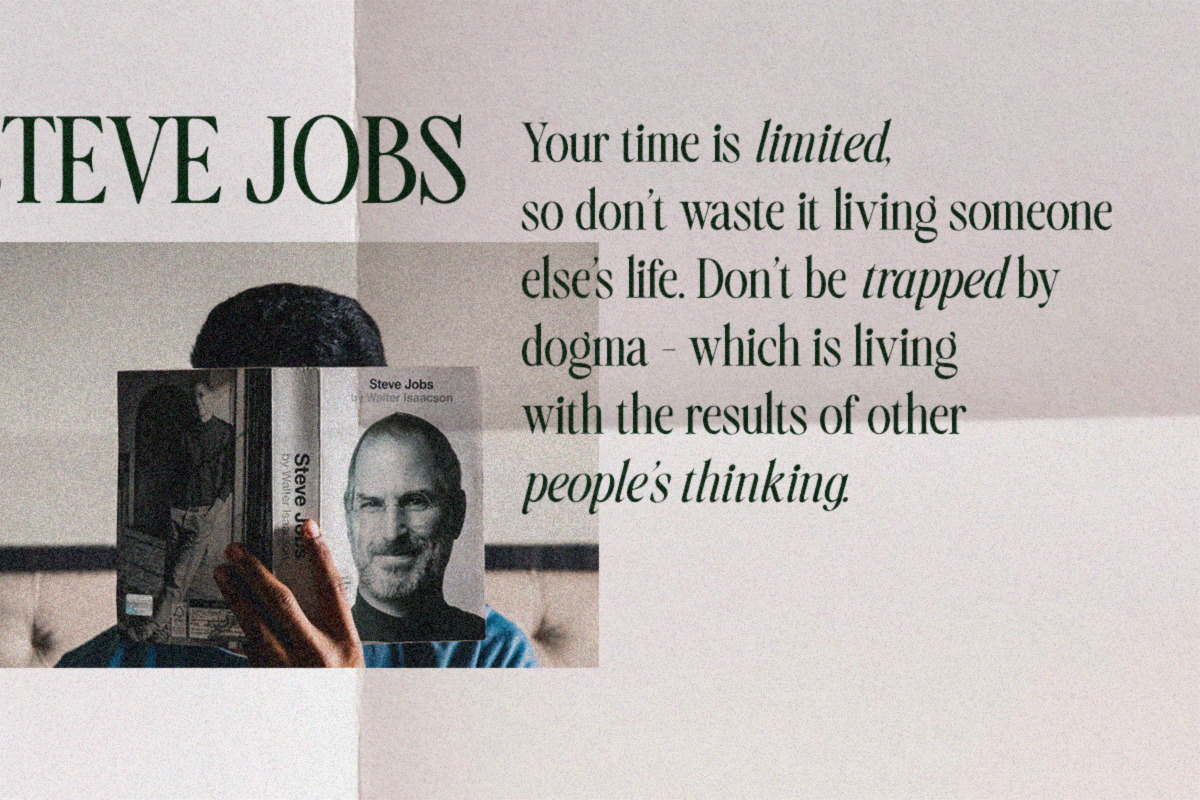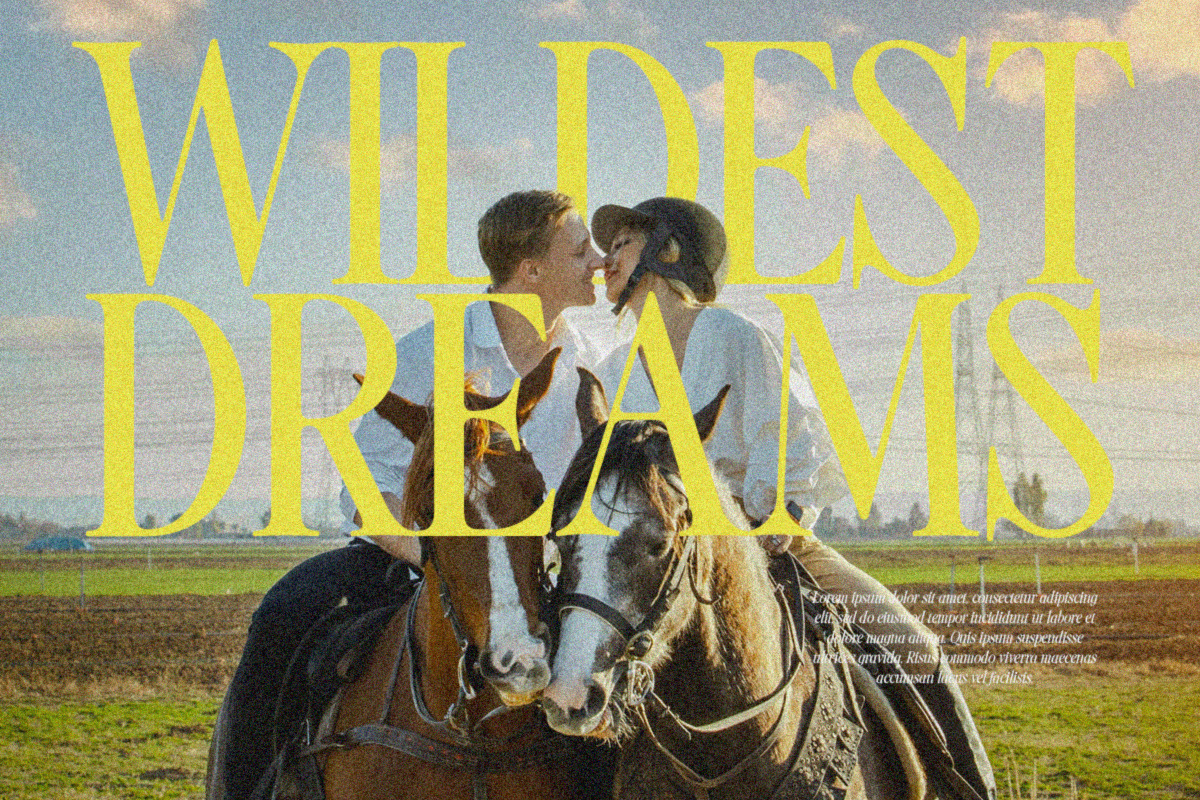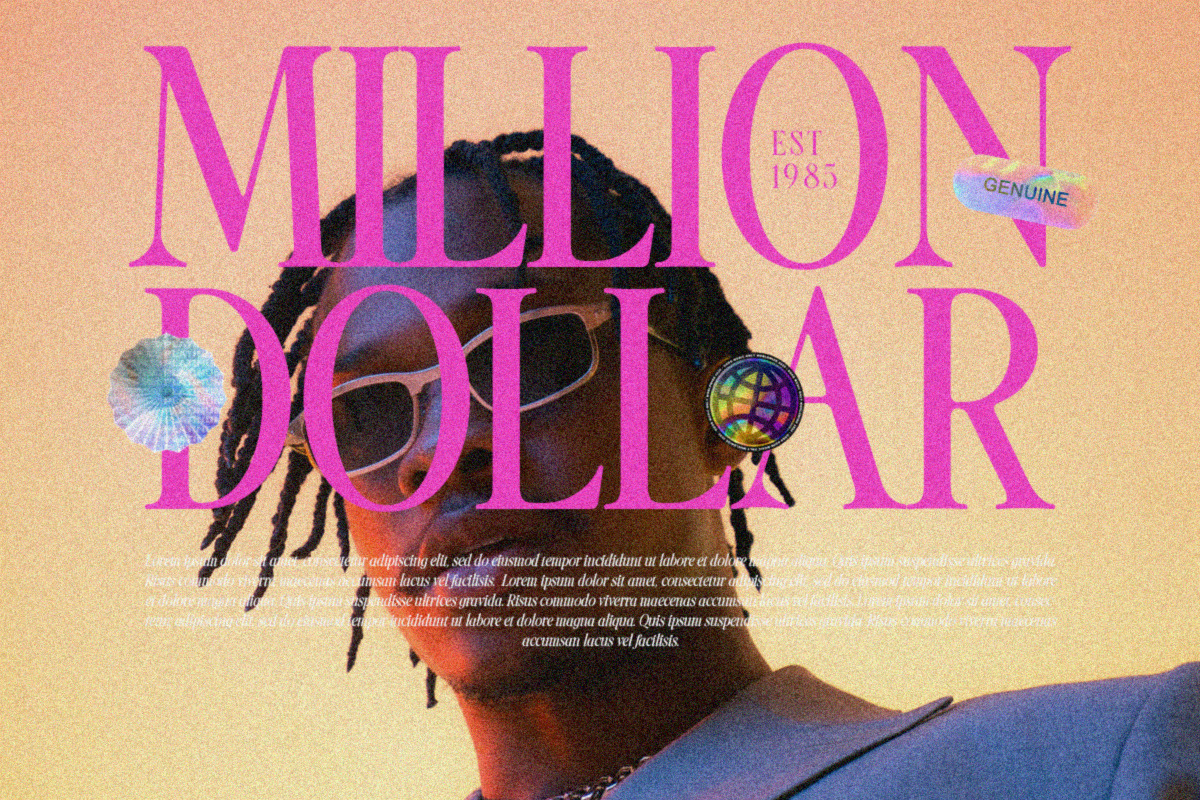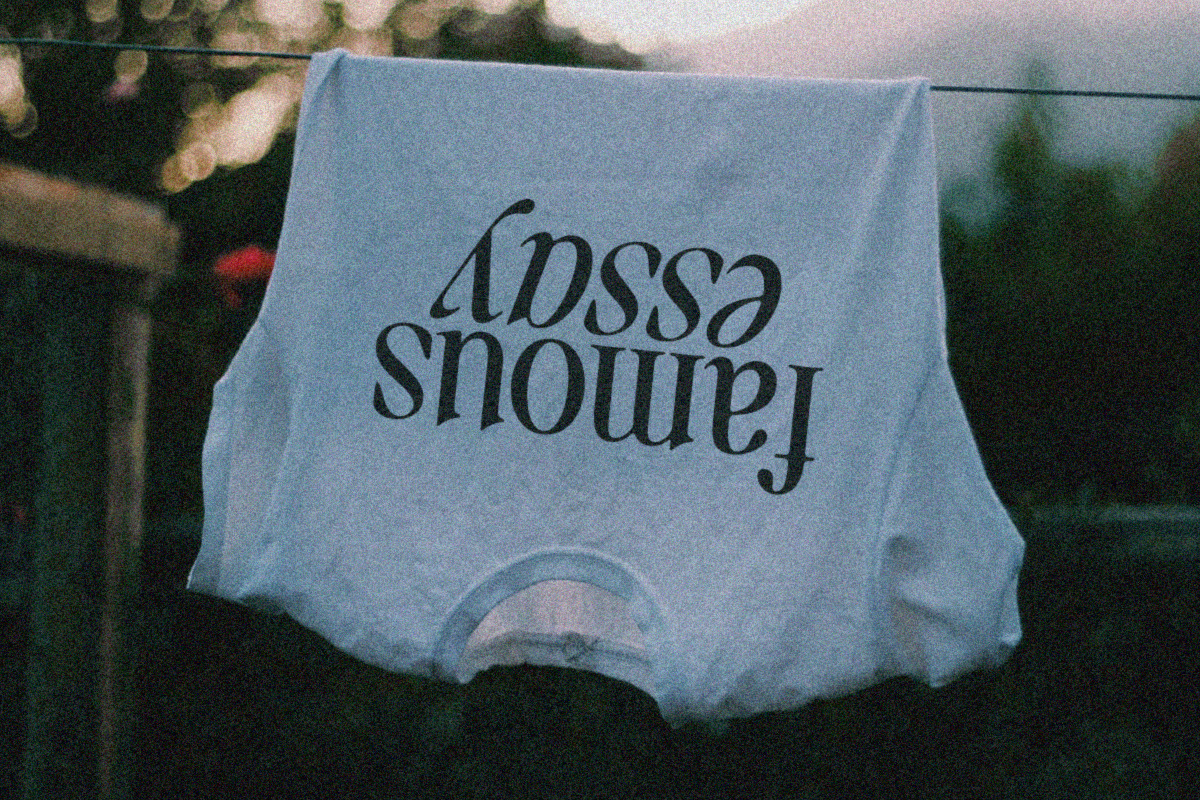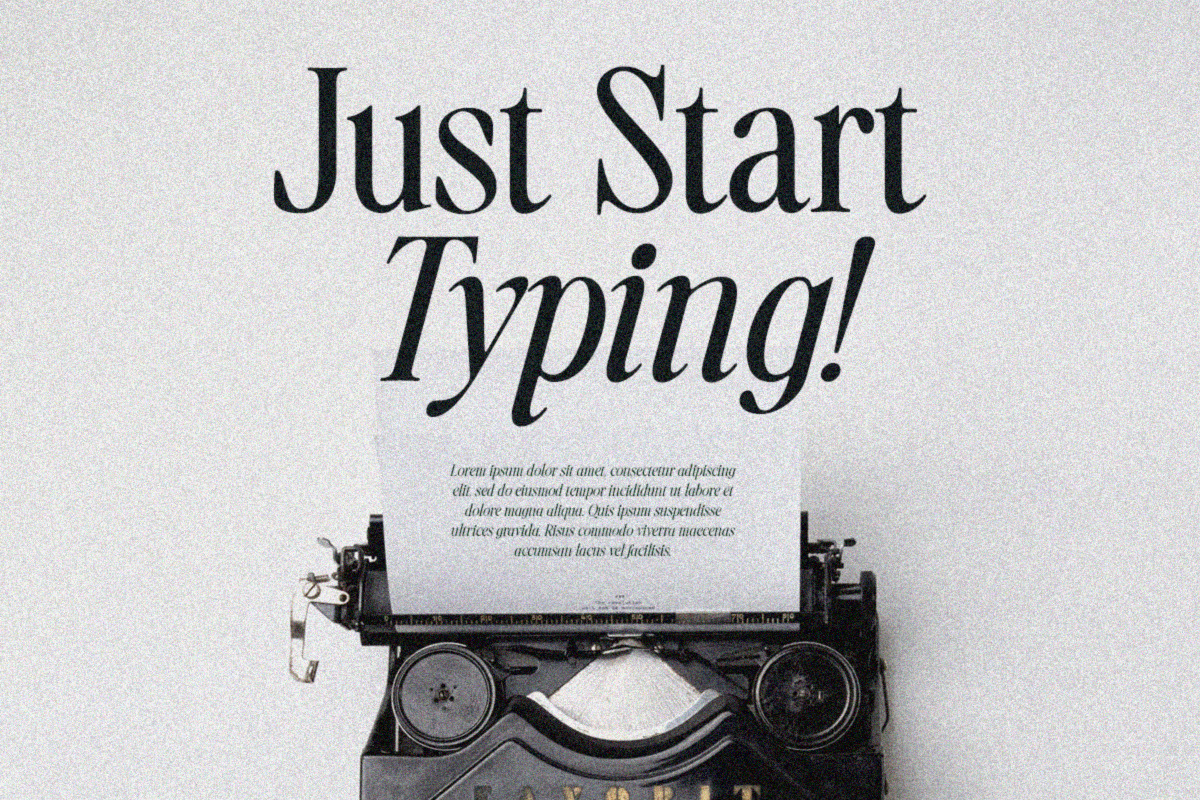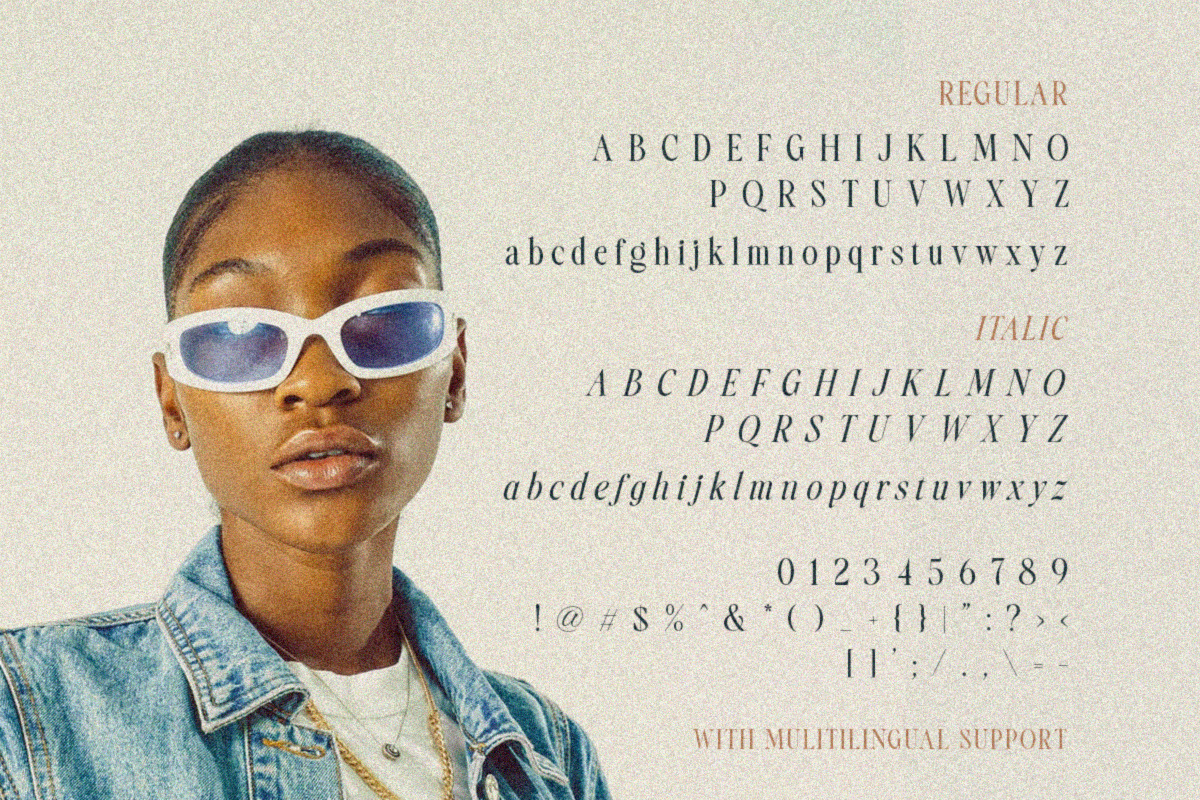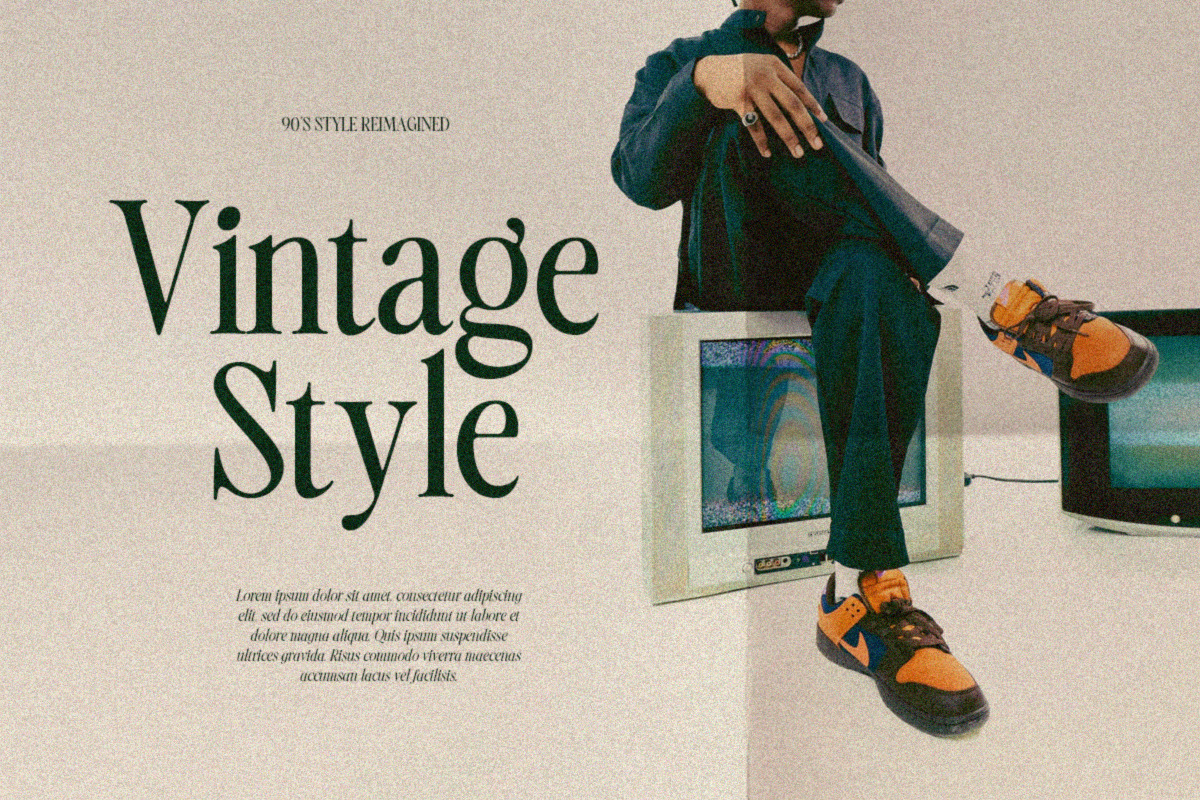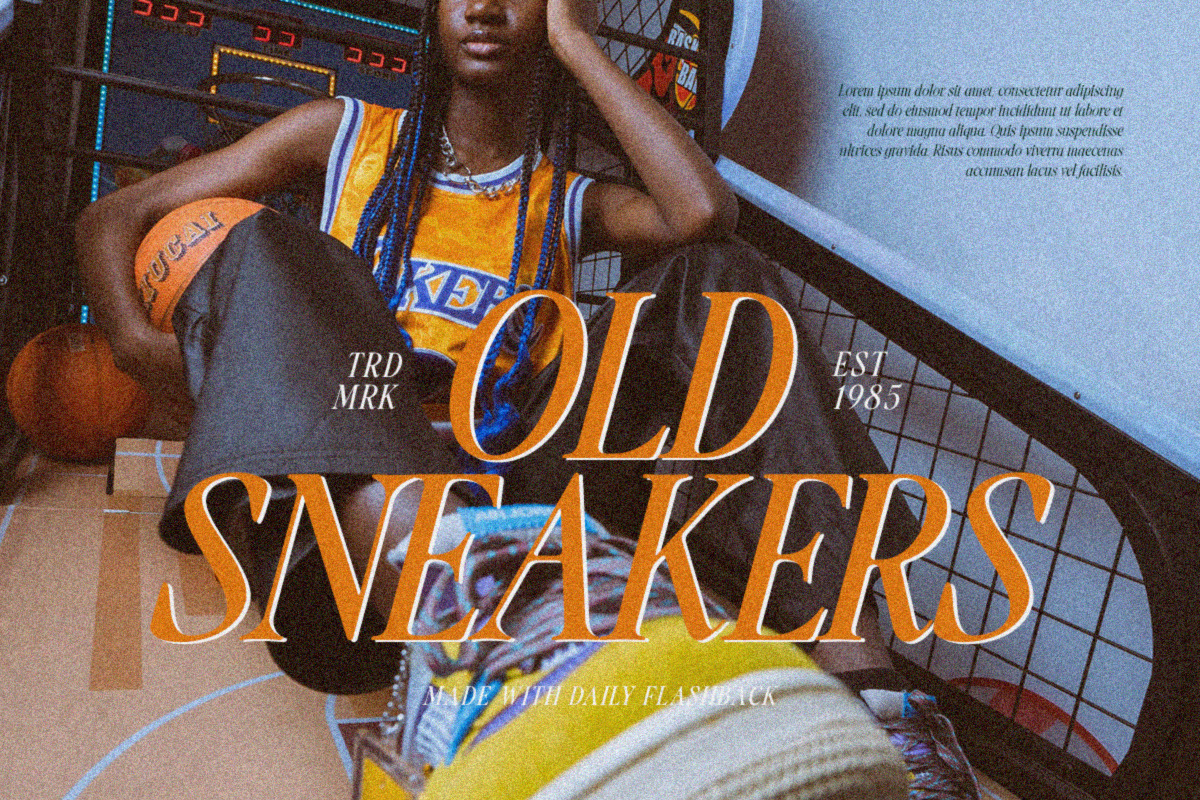
Daily Flashback - Elegant Serif
Daily Flashback is a sophisticated serif typeface. Perfectly to be applied to the other various formal forms such as invitations, labels, logos, magazines, books, greeting / wedding cards, packaging, fashion, make up, stationery, novels, labels or any type of advertising purpose.
- lowercase uppercase
- alternates